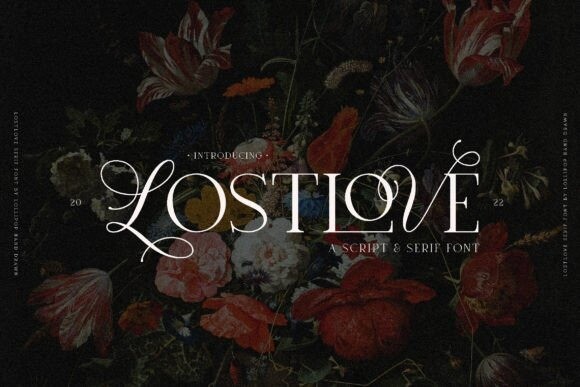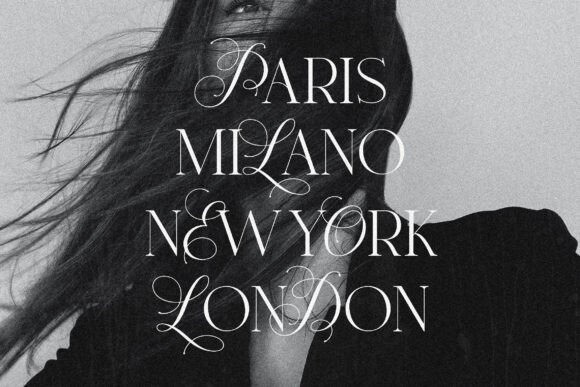
Lost Love Font
Lost Love is a stylish and elegant serif font. Specially designed for luxury, elegant, feminine projects, this font is perfectly suitable for creating modern, chic designs.